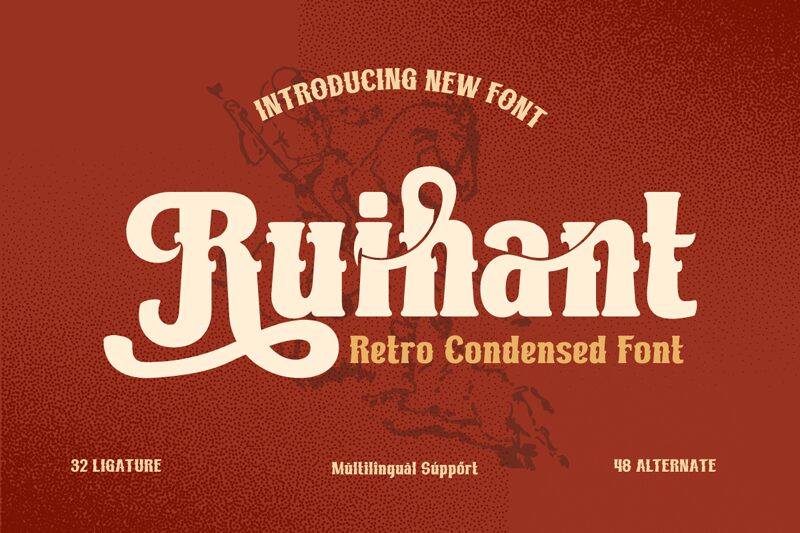
Ruihant trial Regular
Ruihant is a bold and condensed display font from Twinletter that screams retro style. Its eye-catching design is perfect for posters, logos, and branding projects that require a vintage touch. The strong lines and curves of the letters make this semi-bold font ideal for headlines and titles that need to stand out.
Ruihant's condensed width also makes it great for fitting large amounts of text into limited spaces without compromising on legibility. Whether you're working on a music festival poster or an old-school diner menu, Ruihant is the ideal choice for any project that needs a touch of vintage flair.